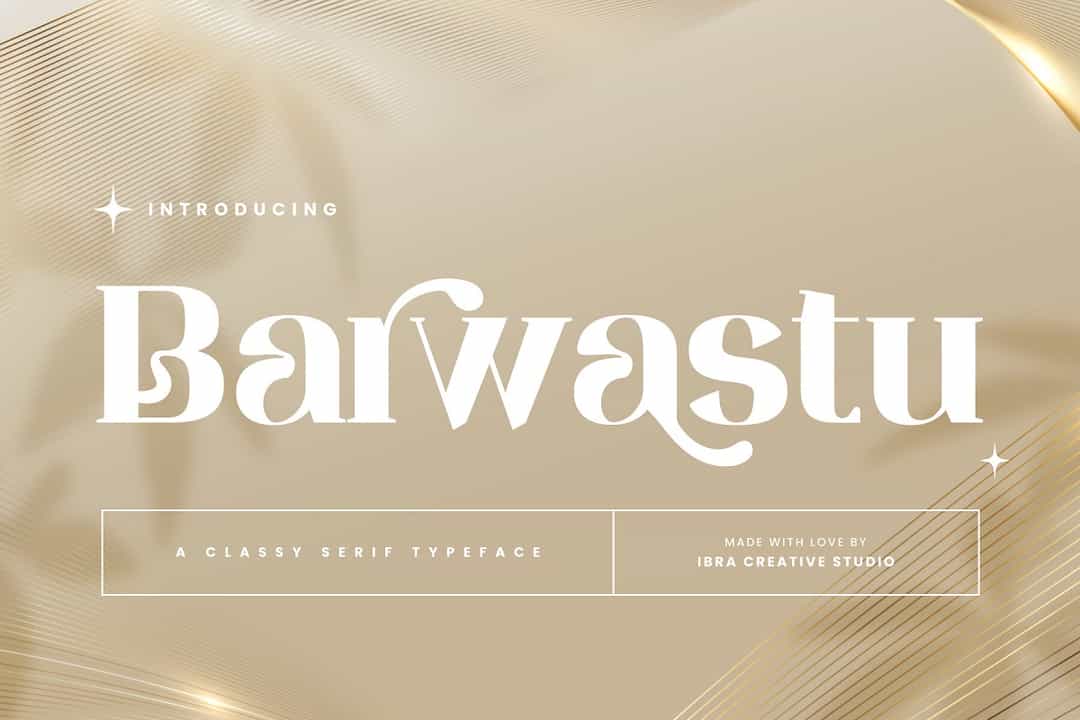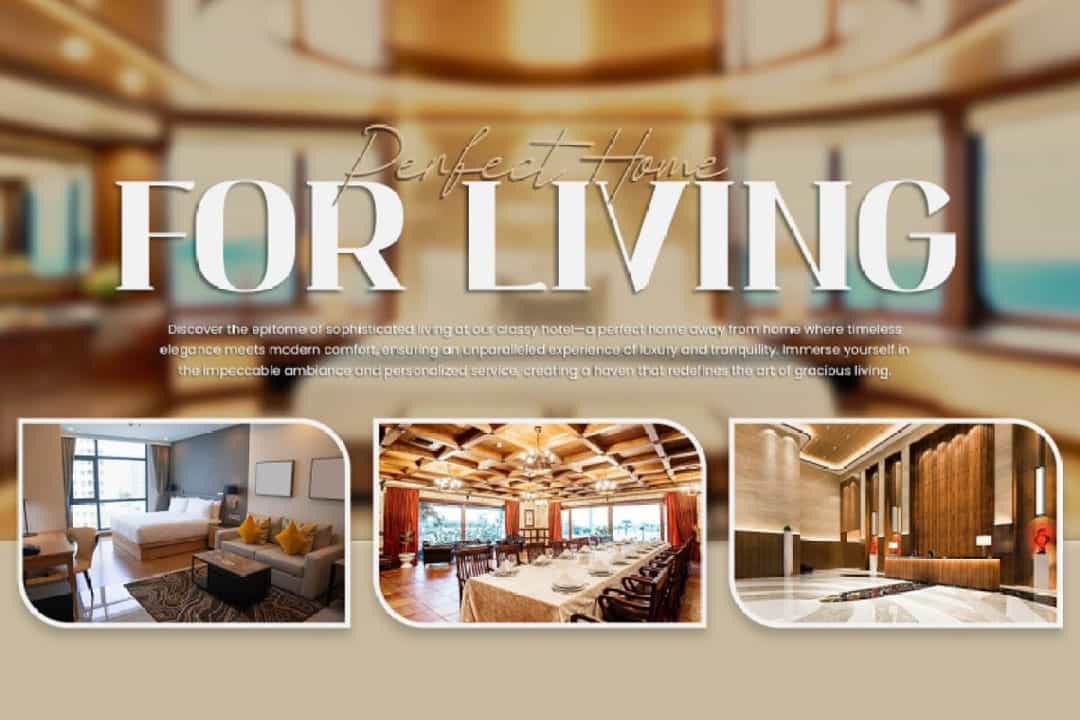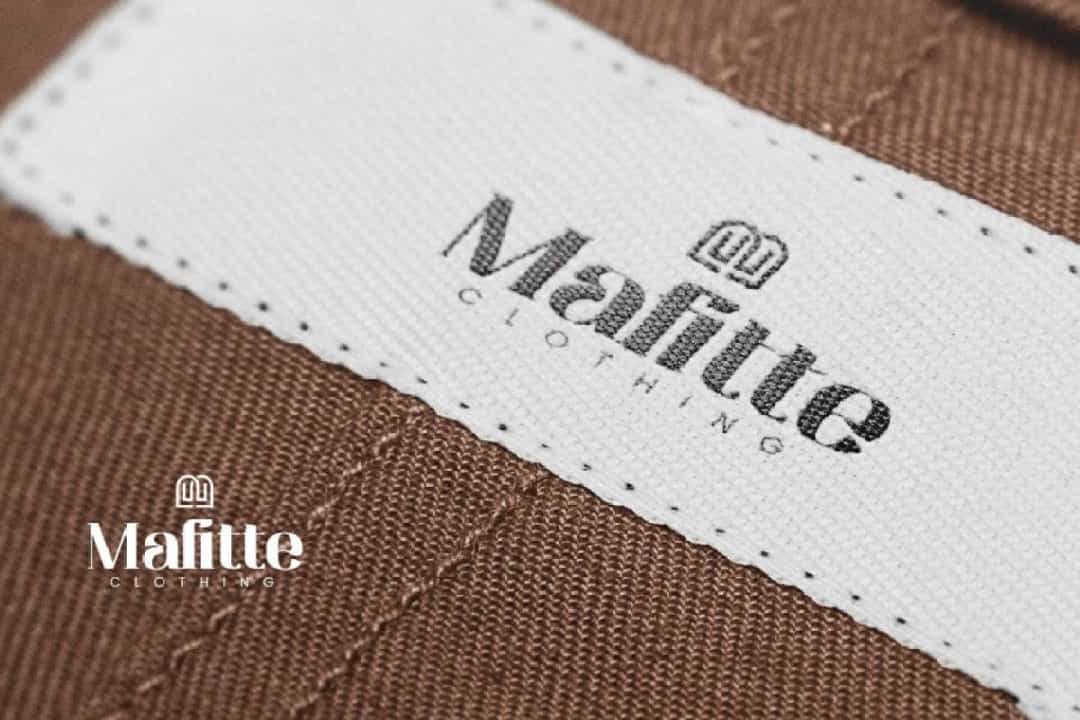
Discover Barwastu Font, part of the Serif collection—a versatile and unique font perfect for adding a personal touch to your projects. Download it for free and enjoy crafting designs with style, from invitations to social media posts. This font is available exclusively for personal use, giving you the freedom to create without limits. Unlock your creativity with Barwastu Font today!
Barwastu, a refined serif font, exudes classic elegance thanks to its precise design and sophisticated style. The elegant curves and distinctive serifs convey an aura of authority and heritage making Barwastu an excellent choice for projects that demand sophistication and professionalism.